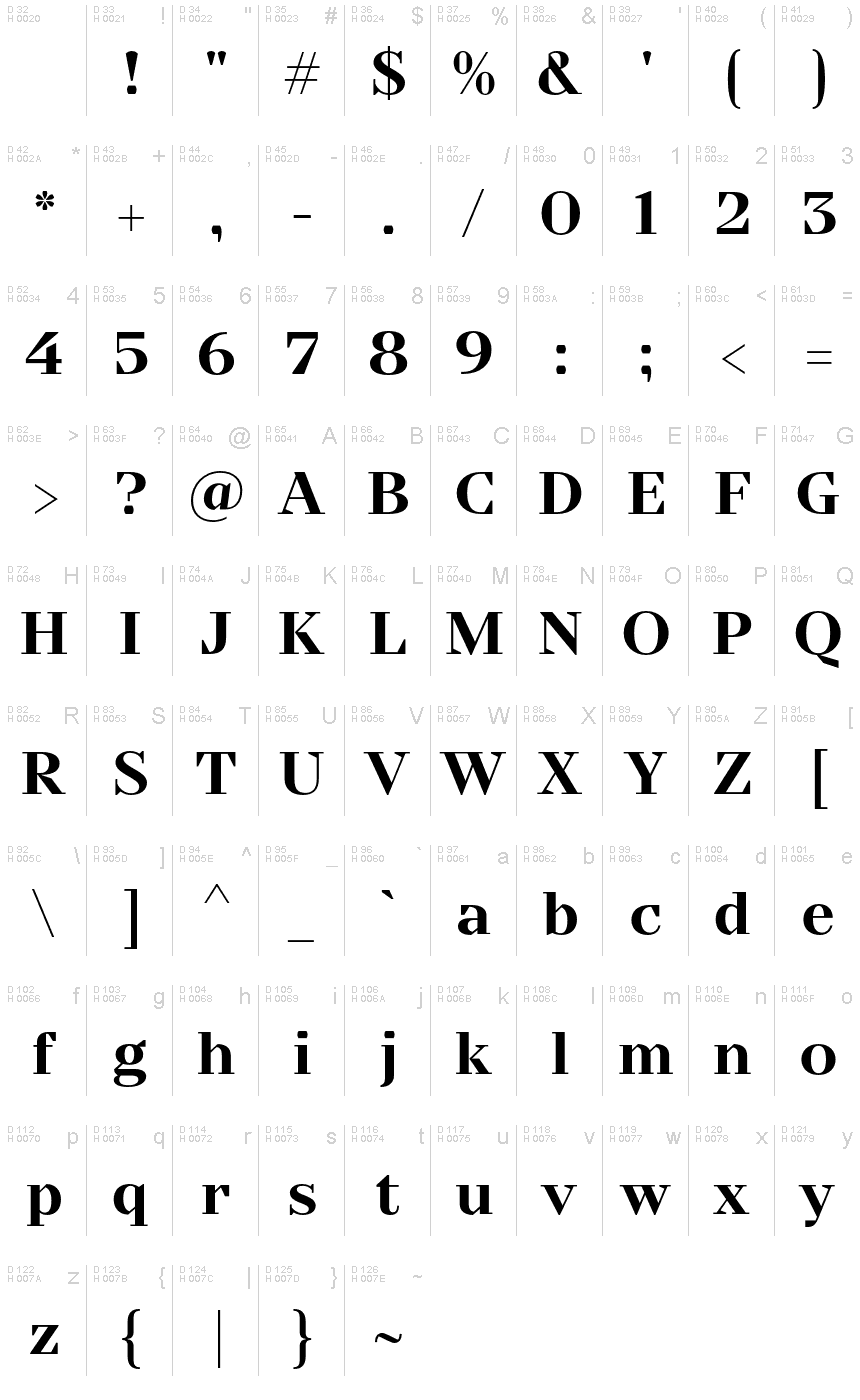
TT Nooks Bold is a striking freeform serif font that exudes confidence and boldness. Its semi-expanded width and bold weight make it an ideal choice for headlines, titles and logos. Whether you're designing a website, creating a poster or crafting a book cover, TT Nooks Bold will add impact to your project. Developed by the TypeType Foundry, this font family includes additional weights and styles for maximum versatility. With its unique character and sophisticated style, TT Nooks Bold is perfect for fashion brands, luxury products or any project that demands attention to detail.
TT Nooks Trial
TypeType: TT Nooks Trial: 2018
TT Nooks Trial Bold